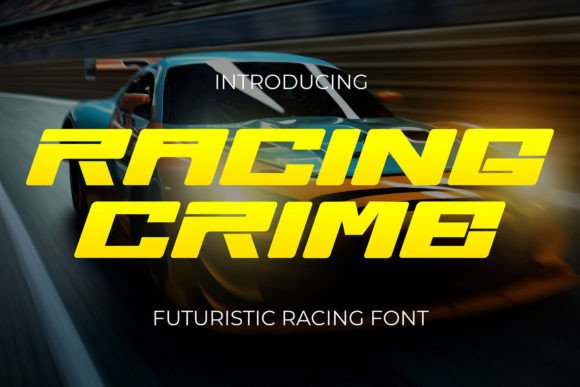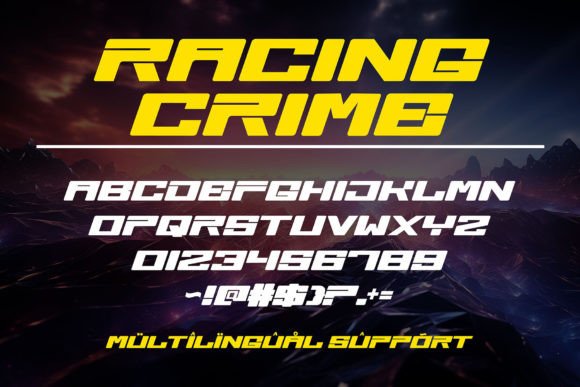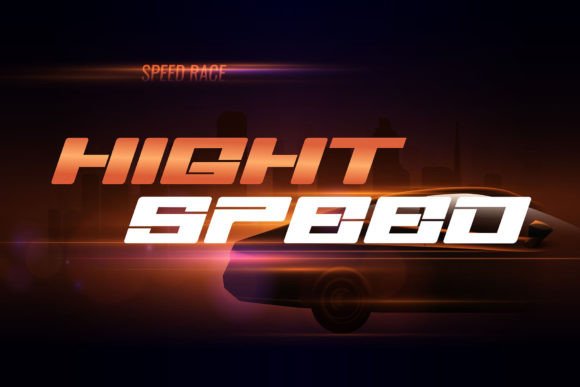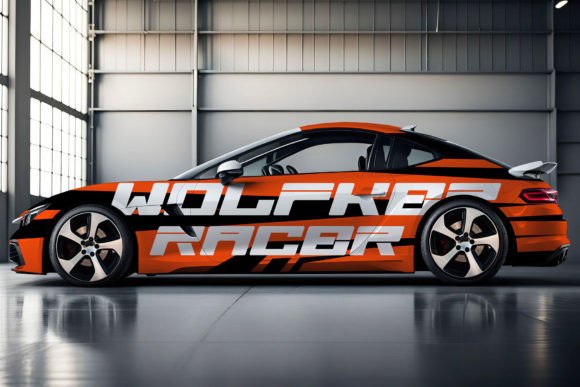
Racing Crime Font: A Bold Display Font for Futuristic Logo Design
About the Racing Crime Font
Let us introduce you to Racing Crime Font, where timeless design meets modern craftsmanship. Introducing “Racing Crime,” a compelling fusion of speed and sophistication, designed to transcend the realm of typography. Fashioned with streamlined contours and kinetic silhouettes, this display font embodies the adrenaline-charged spirit of motorsports and propels you into the fast lane of the future. With its innovative design, it’s a fitting choice for revving up logos, posters, branding, and advertising related to motorsport, video games, and cutting-edge automotive goods.
“Racing Crime” saturates your designs with a daring, contemporary edge, ensuring a standout, statement-making impact with every application. Whether employed in creating riveting headlines, titles or marketing materials, this font commands attention, infusing your text with a raw energy that echoes the roar of racing engines.
In essence, “Racing Crime” offers an aesthetic akin to a thrill ride, accelerating your message to its audience with unparalleled intensity and flair.
Racing Crime Font Usage Examples
Racing Crime Font Example